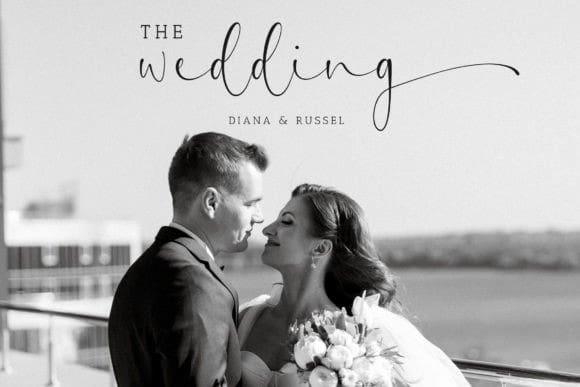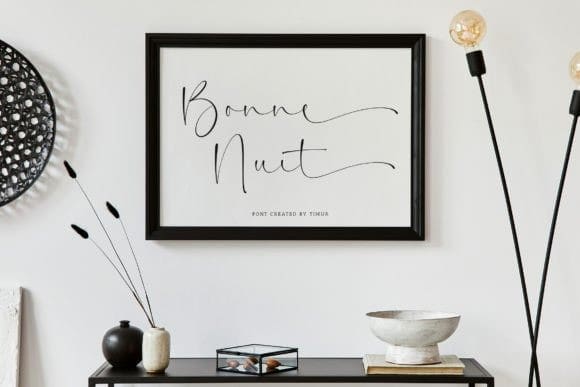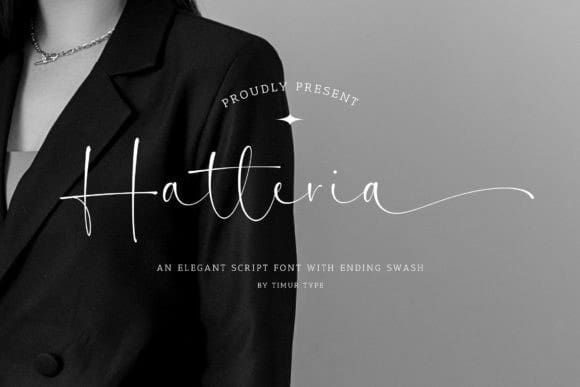
Hatteria Script Font
Hatteria Script Font, this font resembles Latin hand lines, capturing the essence of personalization and quartering. With its intricate details and subtle strokes, it adds a touch of sophistication and elegant style to any design or text it is applied to.
Its subtle and individualistic nature makes it perfect for creating attention-grabbing titles, logos or other elements that require a personal, handmade touch.